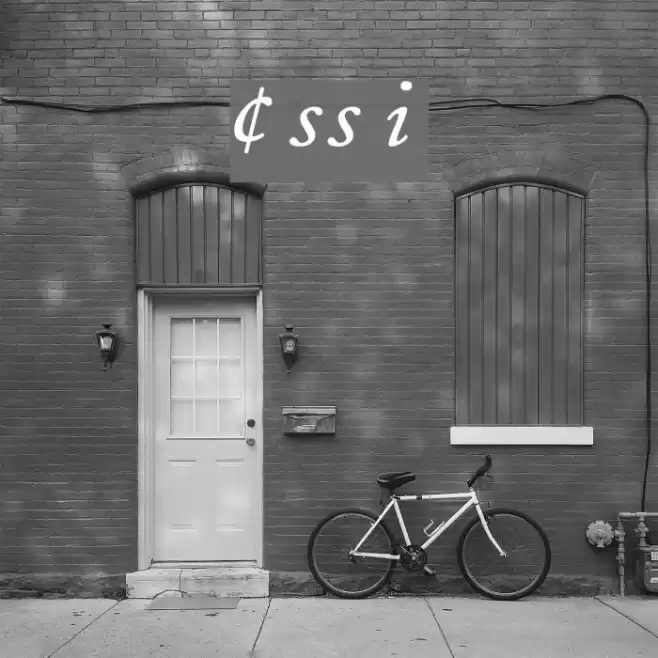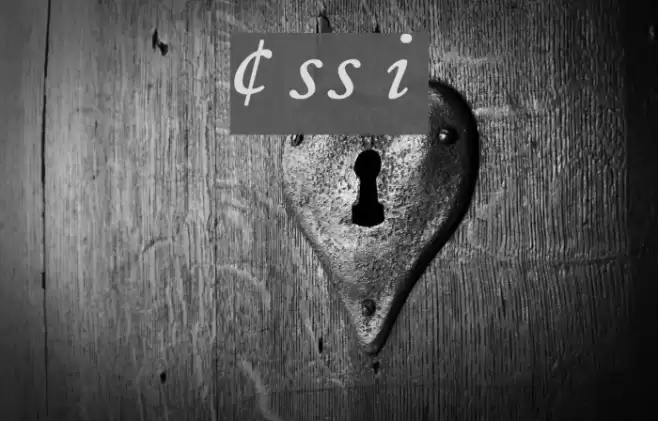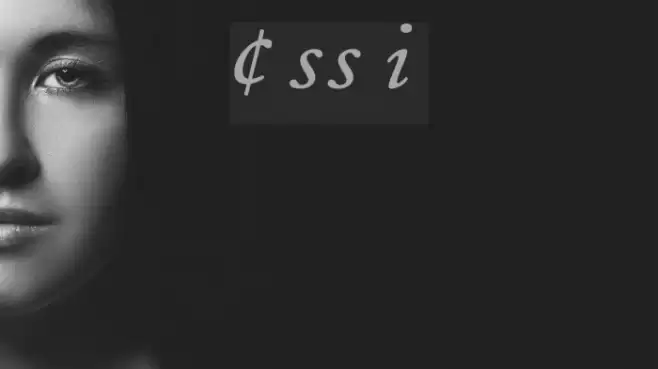
CaslonProSSK Italic Font
CaslonProSSK Italic Description
This font exhibits a classic and elegant style with a distinct italic slant, giving it a sophisticated and refined appearance. The characters are well-proportioned with smooth curves and delicate serifs, enhancing its readability and aesthetic appeal. The uppercase letters are slightly more ornate, while the lowercase letters maintain a consistent flow, making it suitable for both formal and creative applications. The numerals are clear and balanced, complementing the overall design. Special characters are thoughtfully integrated, maintaining the font's cohesive look.
A classic, elegant italic font with smooth curves and delicate serifs from Uncategorized fonts.
- Proposed Projects: Ideal for formal invitations, elegant branding, editorial design, and classic-themed projects.
- Overall Style: Classic